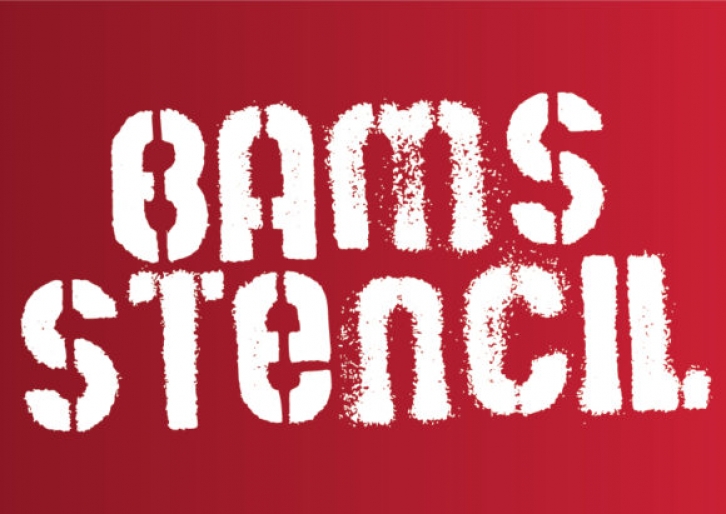
Get a message out there with this cool stencil already cut and sprayed for you, no need of gloves or even a spray can. If you looking to create an impact or a message which society needs to see then using a font that you can really feel! For budding activities and hardcore protesters on either side of the political divide.